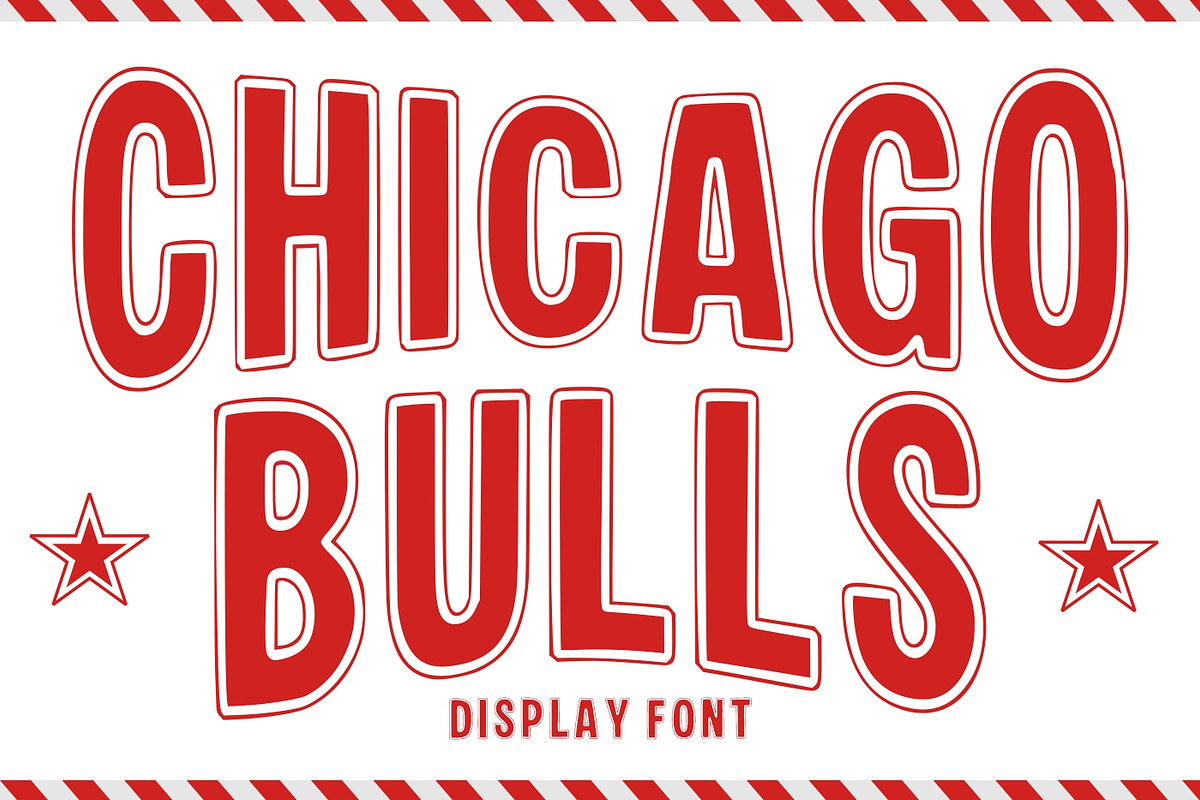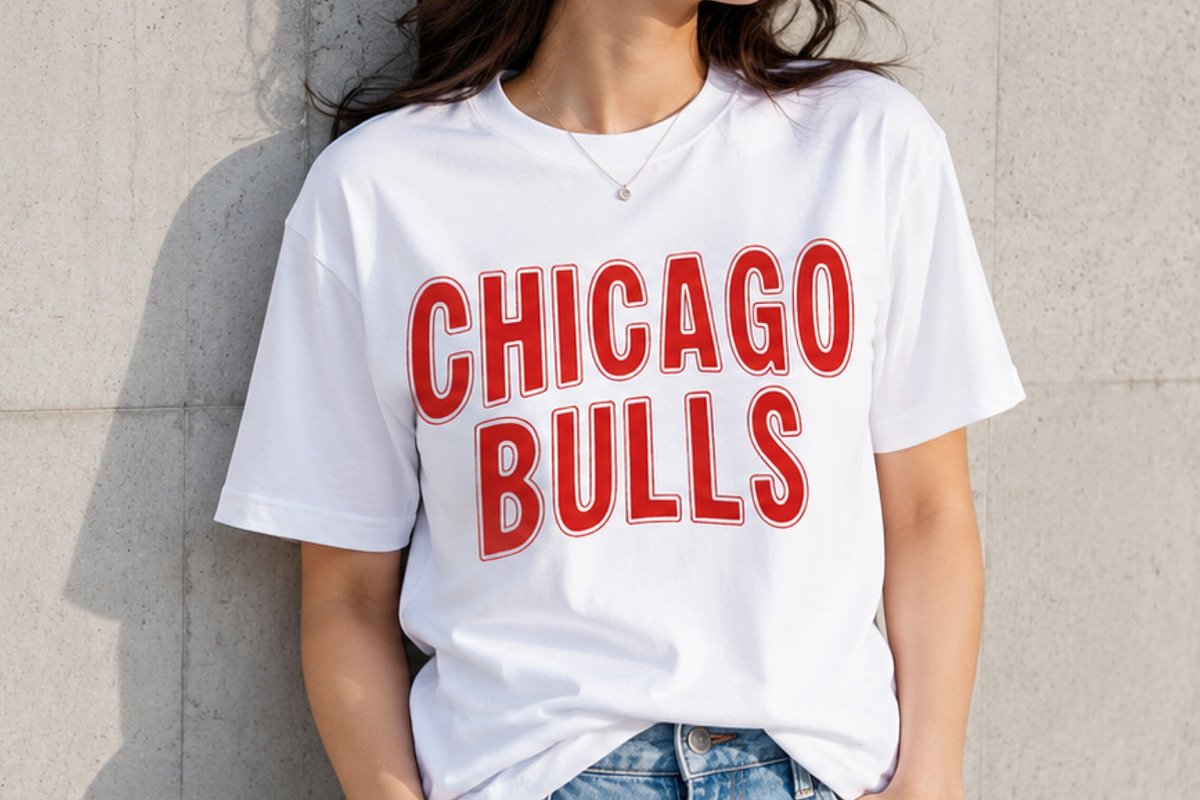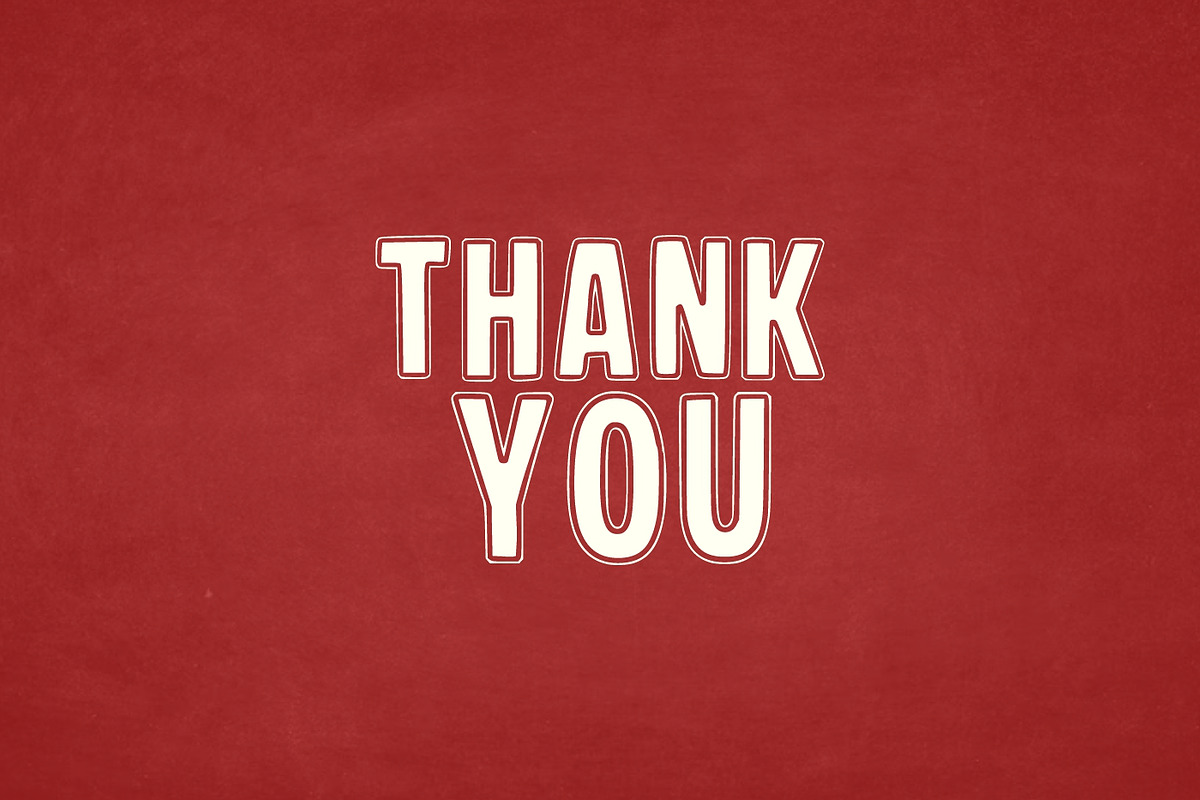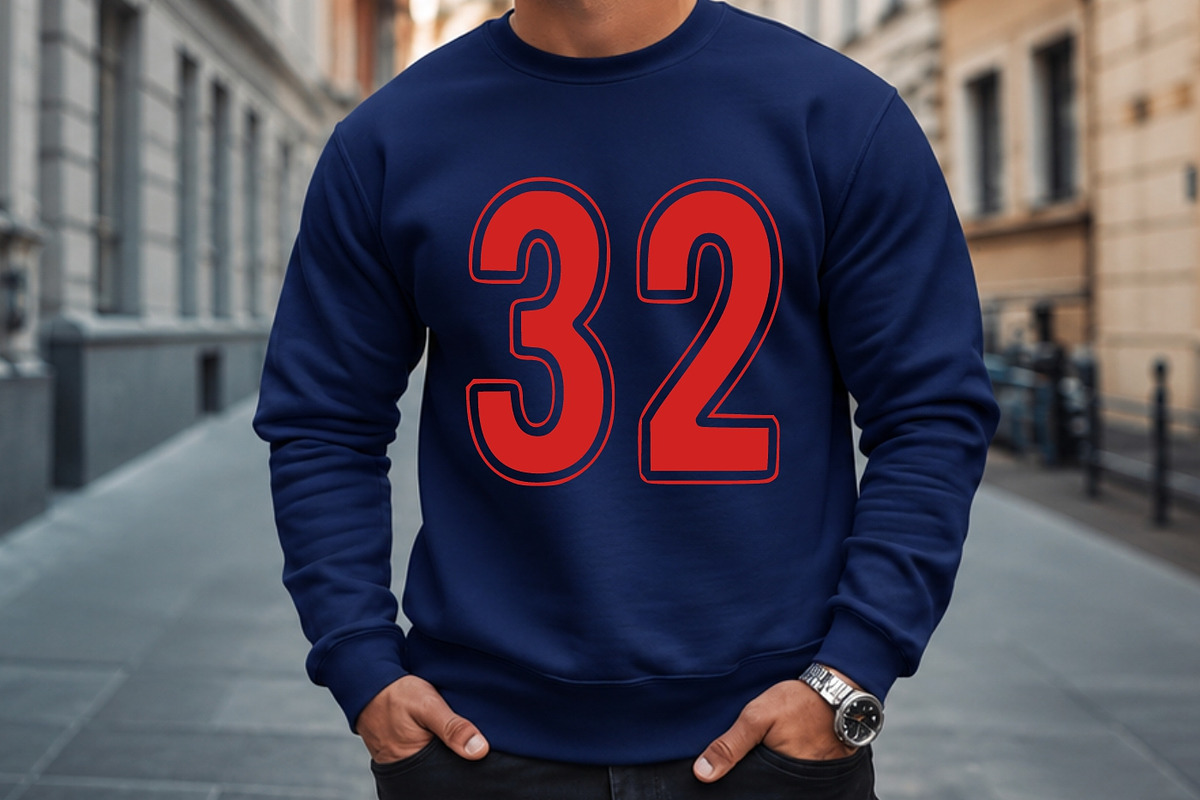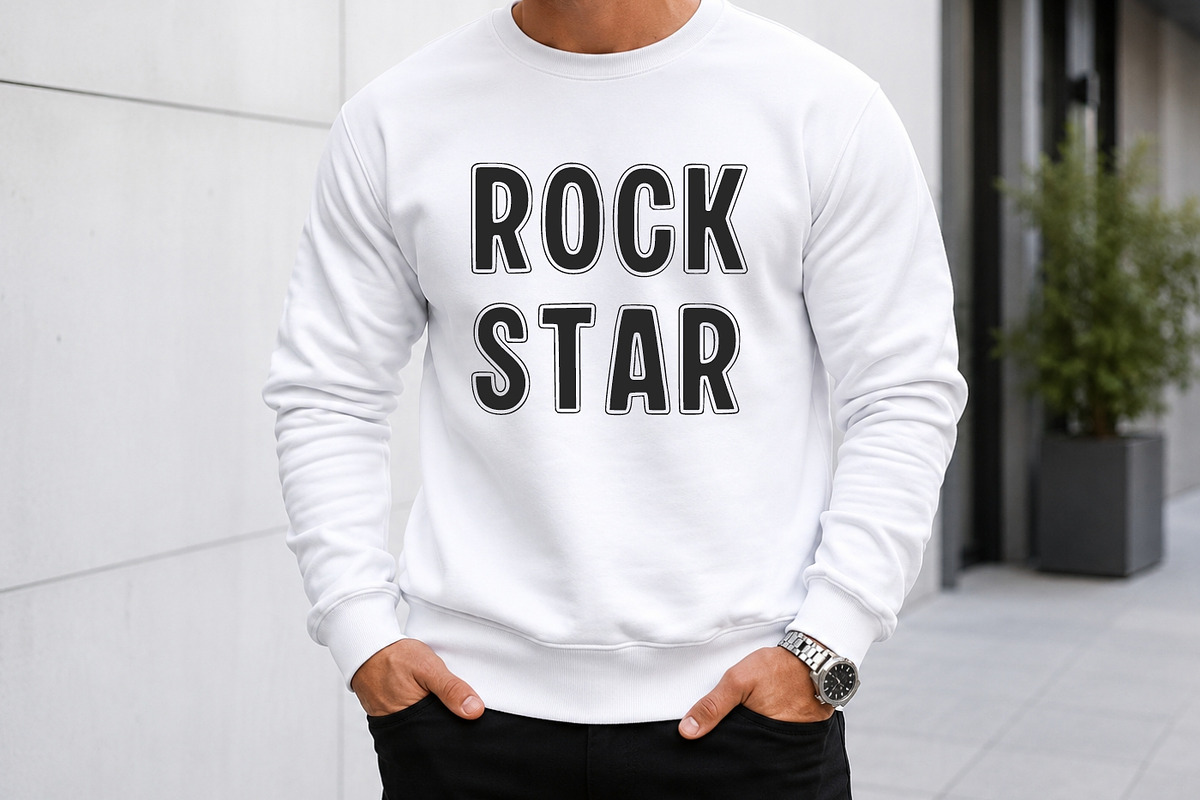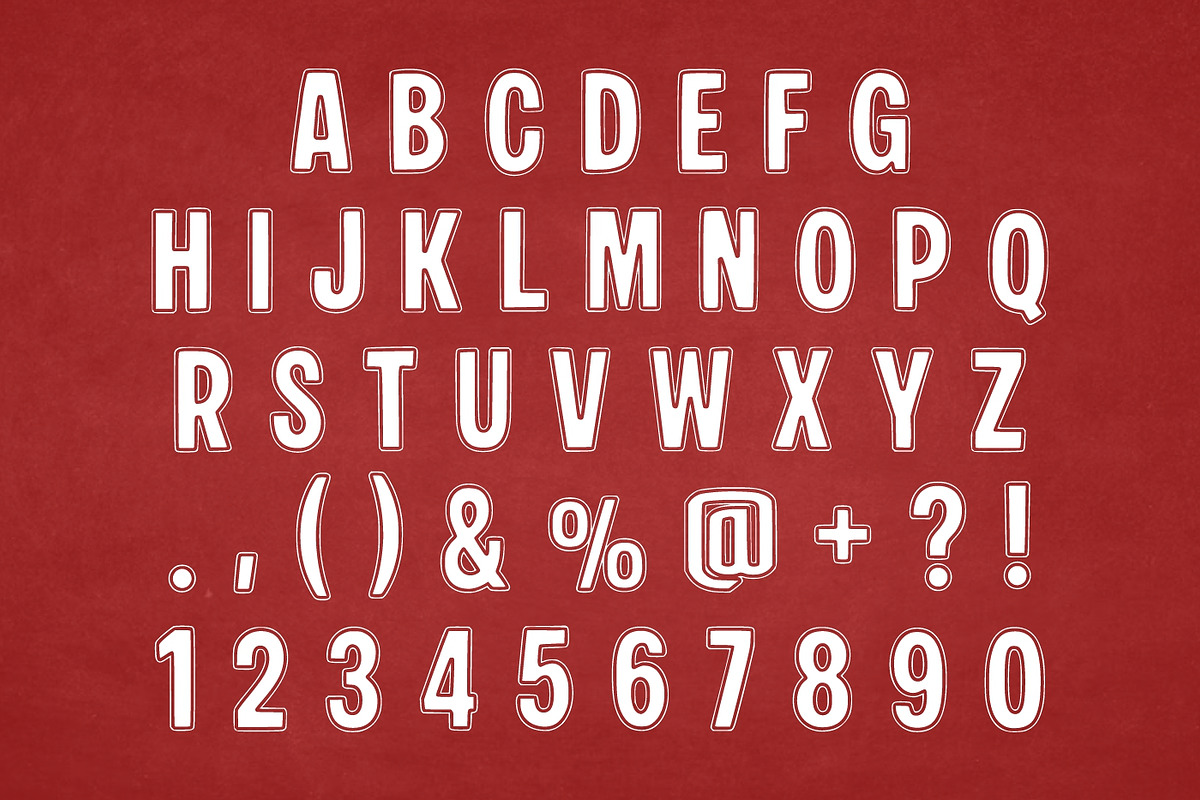
Chicago Bulls
Chicago Bulls Font, a bold and energetic display typeface inspired by classic sports lettering, varsity aesthetics, and vintage athletic branding. Designed with strong character shapes, playful outlines, and eye-catching proportions, this font is perfect for creating impactful headlines that demand attention.
Whether you’re designing sports-themed projects, team merchandise, school apparel, event posters, social media graphics, packaging, logos, or bold branding materials, Chicago Bulls Display Font delivers a confident and dynamic look. Its clean yet playful letterforms make it highly versatile, allowing it to work beautifully in both modern and retro-inspired designs.
The thick strokes and outlined details provide excellent readability at large sizes while maintaining a fun and approachable personality. This font is ideal for t-shirt designs, sports club branding, basketball-themed artwork, varsity projects, youth event promotions, product packaging, stickers, Cricut crafts, and more.
Bring the excitement of championship-style typography into your next creative project with this bold and memorable display font.